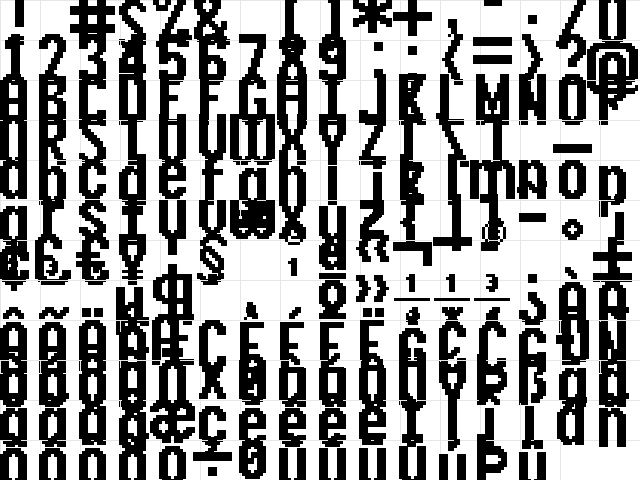
header 17_68 Regular Free Font
header 17_68 Regular
Designer: Craig Kroeger
Design Context for header 17_68
header 17_68 is a composed and adaptable typeface that performs quietly and consistently across a wide range of design contexts.